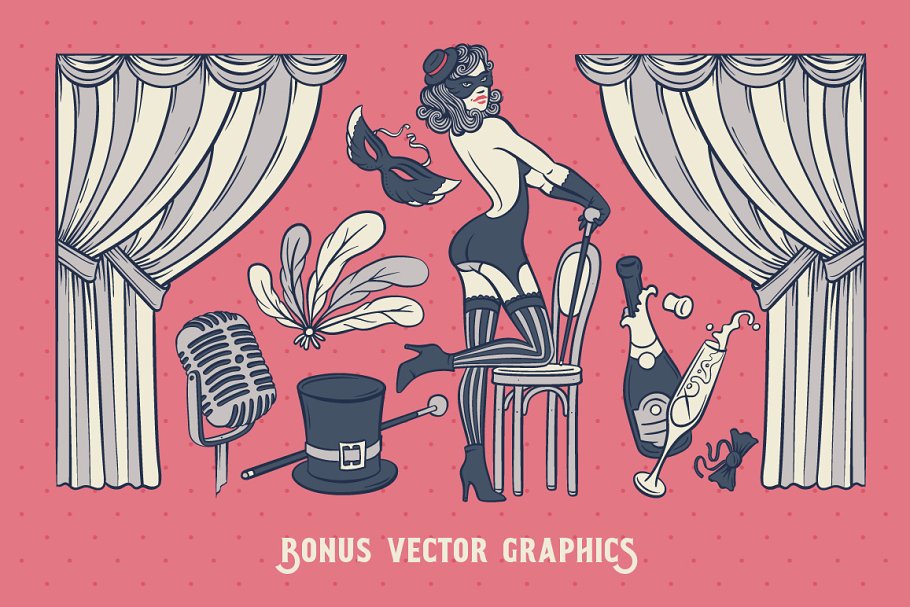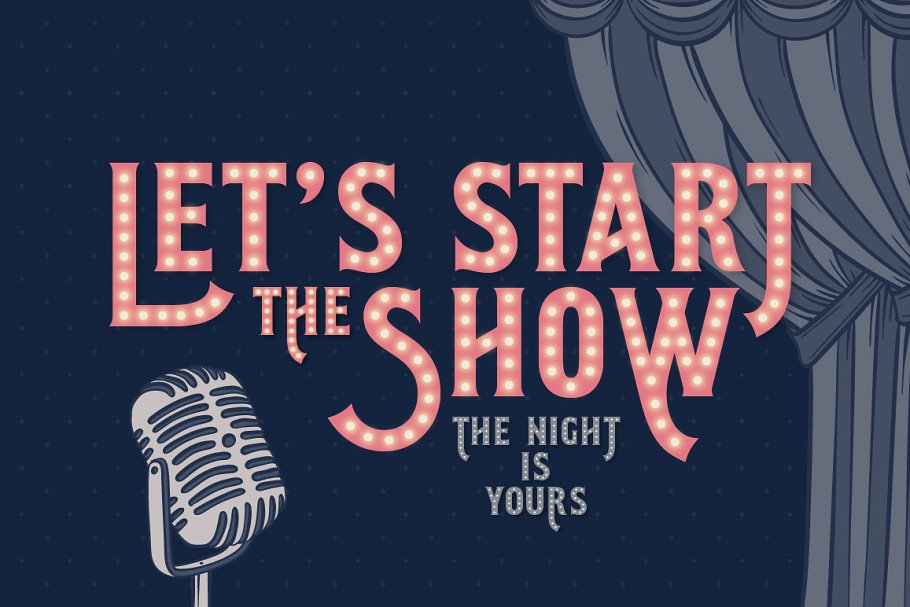
About the Shining Night bonus Font
Hi! Introducing a vintage style font, with a beautiful cabaret female dancer illustration, This font has additional font file with round dots over the base glyphs, that immitates a lamp lights of a real cabaret signboard, What’s inside:OTF & TTF font filesVector Eps v, 10 with all glyphsVector Eps with bonus illustration (2nd screenshot)Note: all available characters you can see on the 4th screenshotThank You!